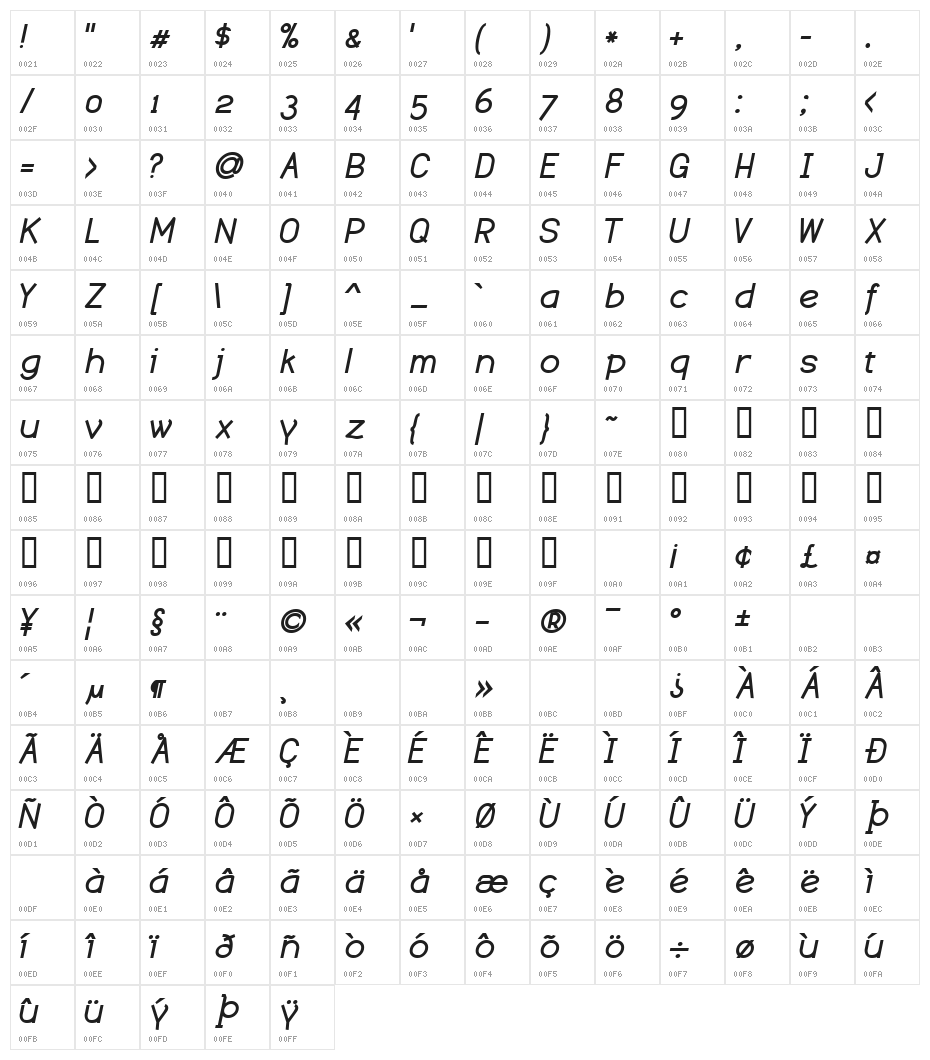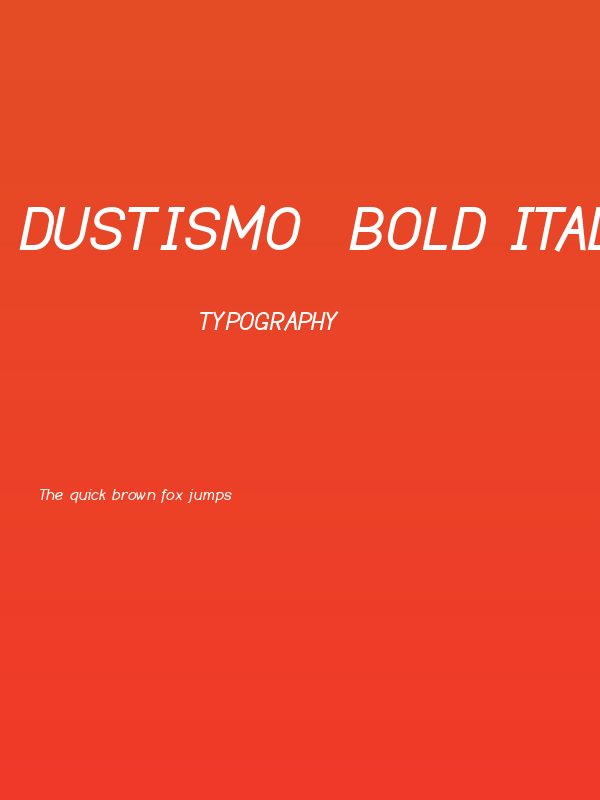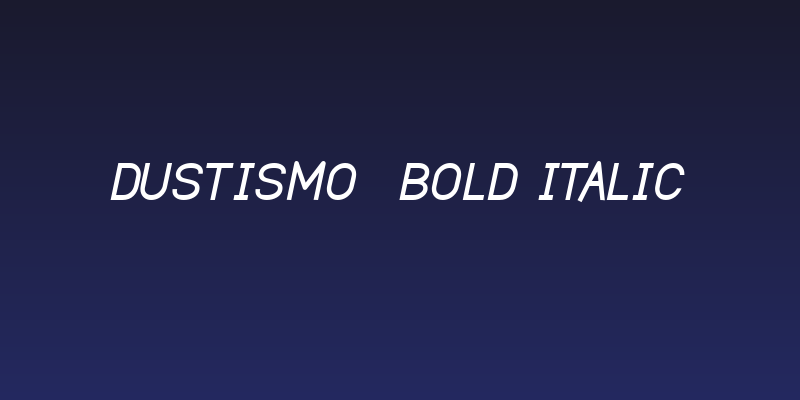
Dustismo Bold Italic Font
Dustismo Bold Italic Description
This font exhibits a bold and italicized style, characterized by its strong and dynamic appearance. The letters are slightly slanted, giving a sense of motion and fluidity. The strokes are consistent in thickness, providing a uniform look across all characters. The uppercase letters are well-proportioned, while the lowercase letters maintain a harmonious balance with their counterparts. The numerals are clear and legible, making them suitable for various applications. Special characters are distinct and easily recognizable, enhancing the font's versatility. Overall, this font combines boldness with elegance, making it suitable for a wide range of design projects.
| Use Case | Headlines, Logos, Advertising |
| Proposed Projects | Ideal for branding, advertising, headlines, and editorial design. |